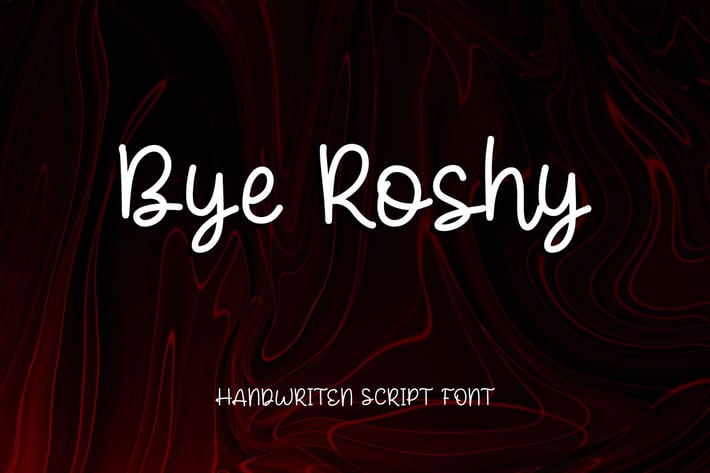
Bye Roshy - Handwritten script font
Hello! Bye Roshy is a simple handwritten font.
Bye Roshy can be used in any works such as flyer, book title, advertisement, social media content, logo and many more.